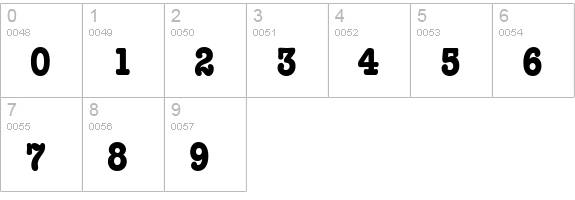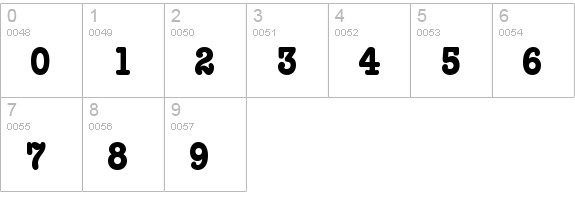
Keyboard Condensed SSi Bold Condensed Font Details
Keyboard Condensed SSi Bold Condensed is a strong, high-contrast, condensed-width variant in the Keyboard typeface family \xE2\x80\x94 well suited to headlines, attention-grabbing titles, and strong calls-to-action.
Introducing the Keyboard Condensed SSi Bold Condensed font, a versatile and eye-catching typeface that is sure to make a bold statement. This condensed font is perfect for projects that require a sleek and modern touch, allowing you to create striking headlines, stylish logos, and captivating designs. With its distinct and condensed letterforms, Keyboard Condensed SSi Bold Condensed font exudes confidence and sophistication. Its bold weight adds an extra level of impact, making it ideal for grabbing attention and commanding the viewer's gaze. What sets Keyboard Condensed SSi Bold Condensed font apart is not just its stunning aesthetics, but also its availability. This exceptional font is freely available to download at FontsMarket.com, making it accessible to designers, creatives, and enthusiasts alike. Whether you're a professional designer crafting a brand identity or a student working on a personal project, the opportunity to utilize this outstanding font without any cost is a true game-changer. The Keyboard Condensed SSi Bold Condensed font offers exceptional legibility, even at smaller sizes, making it perfect for various applications. Its condensed nature allows for efficient use of space, making it an excellent choice for packaging, magazine layouts, posters, and more. The bold weight ensures that your message is delivered with impact and confidence, making it perfect for headlines, titles, and attention-grabbing text. With its clean lines and contemporary appeal, Keyboard Condensed SSi Bold Condensed font is a must-have addition to any designer's toolkit. Its versatility, legibility, and boldness make it an incredibly valuable asset for a wide range of projects. Whether you're aiming for a minimalist and modern look or a bold and impactful design, this font has got you covered. So why wait? Enhance your designs and elevate your typography game with Keyboard Condensed SSi Bold Condensed font. Download it today for free at FontsMarket.com and let your creativity soar.